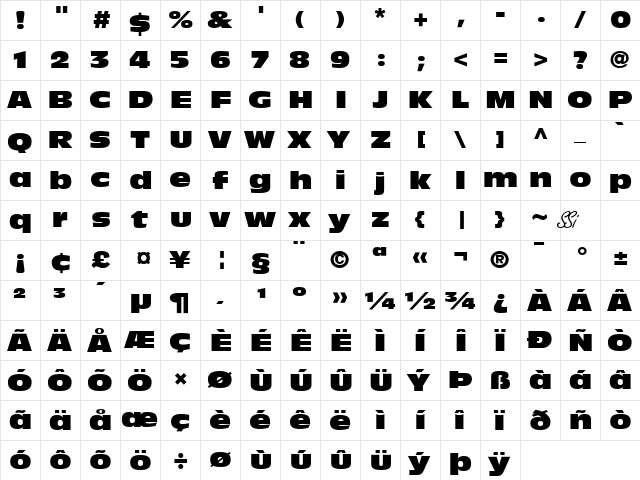
Decade Black SSi Extra Black
Design Context for Decade Black SSi Typeface
Decade Black SSi takes a measured approach to typography — its balanced proportions and neutral character make it a reliable workhorse for both digital and print work.